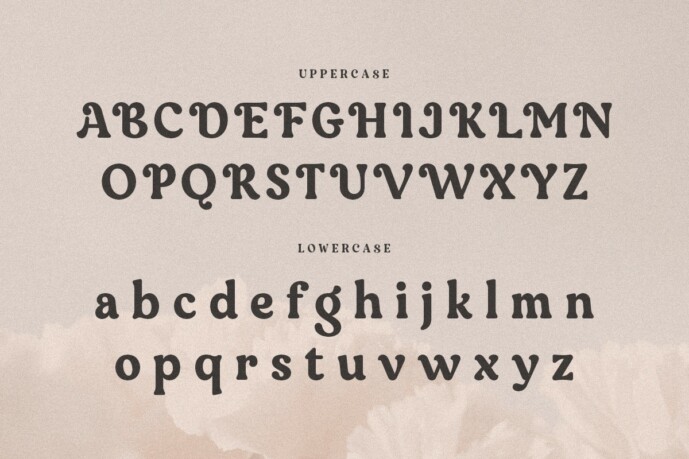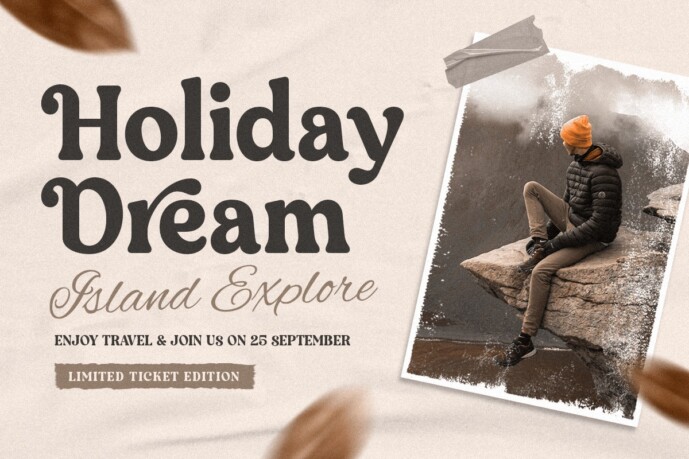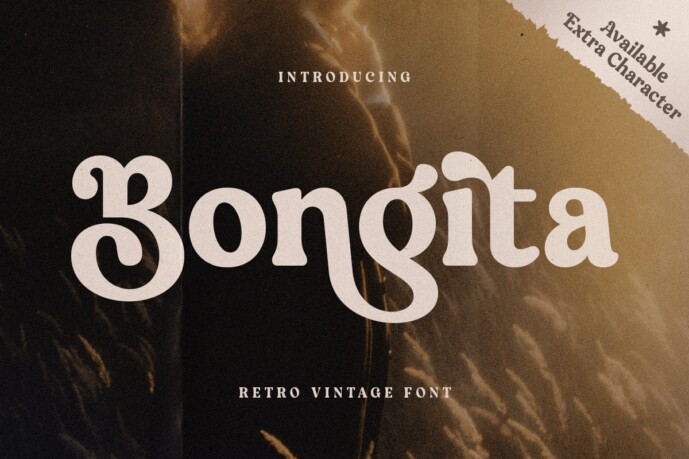
Bongita Font
Bongita Font is a retro vintage font that embodies the nostalgic charm of classic design eras, perfect for projects looking for a timeless touch. Inspired by iconic signage and advertising from the past, Bongita adds character and warmth to any design, making it a great choice for branding, packaging, and more. Its unique style is ideal for anyone looking to infuse their projects with a sense of history and artistic flair.
With its bold lettering and distinct vintage vibe, Bongita is versatile enough to fit both modern and traditional aesthetics. From logos to posters to headlines, Bongita’s retro elements set it apart, giving each piece a unique personality. Its carefully crafted strokes and details evoke a sense of authenticity that resonates with audiences seeking a nostalgic look.
From vintage-inspired logos to captivating posters, Bongita is the font that will set the tone for your designs with its bold and stylish characters.